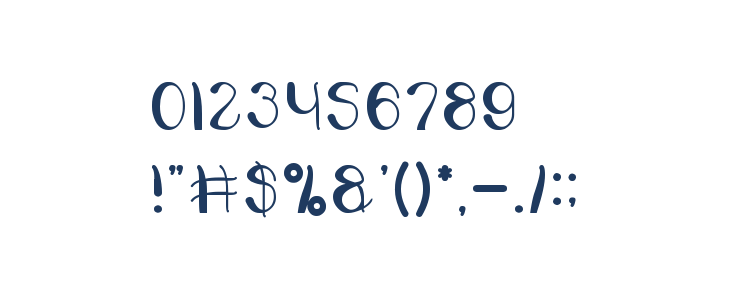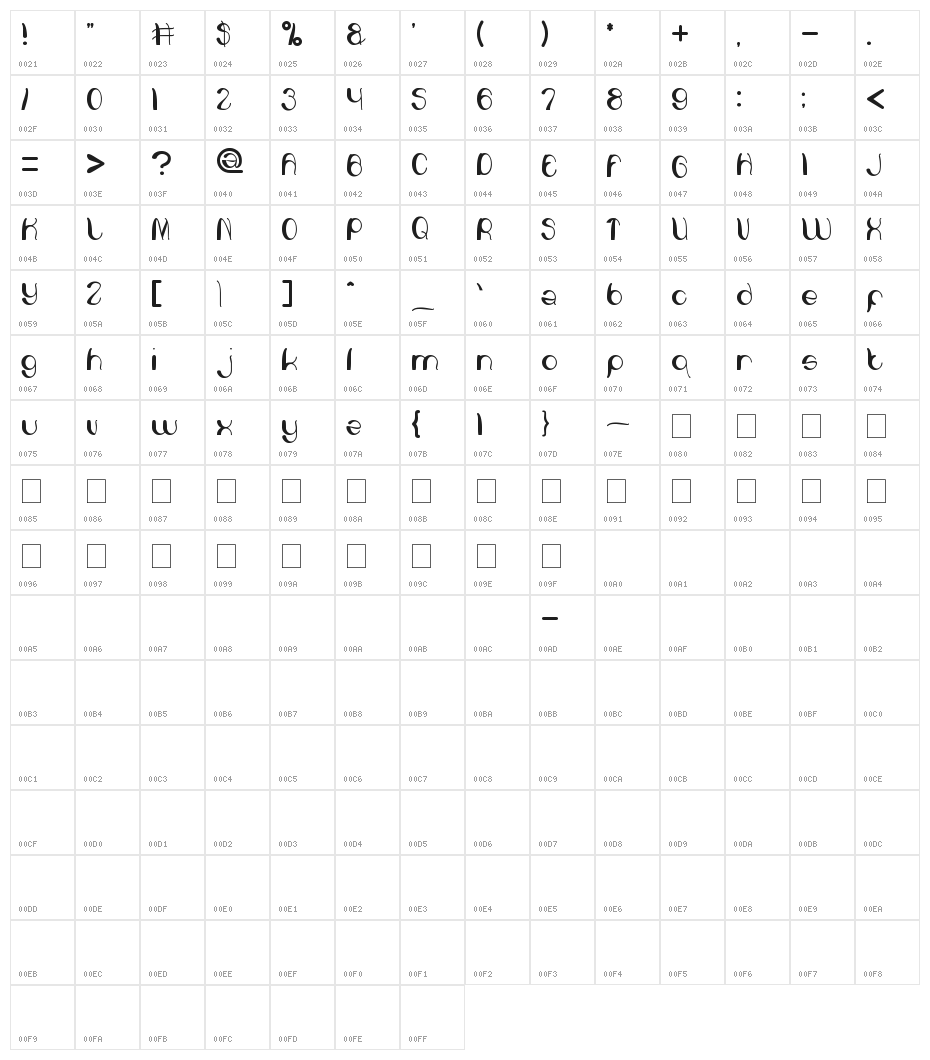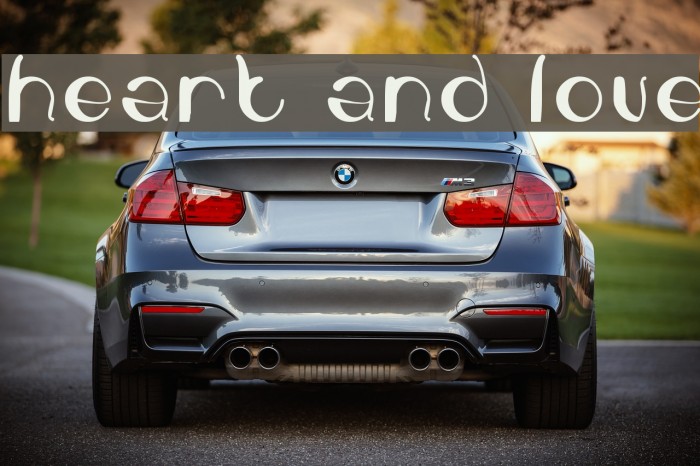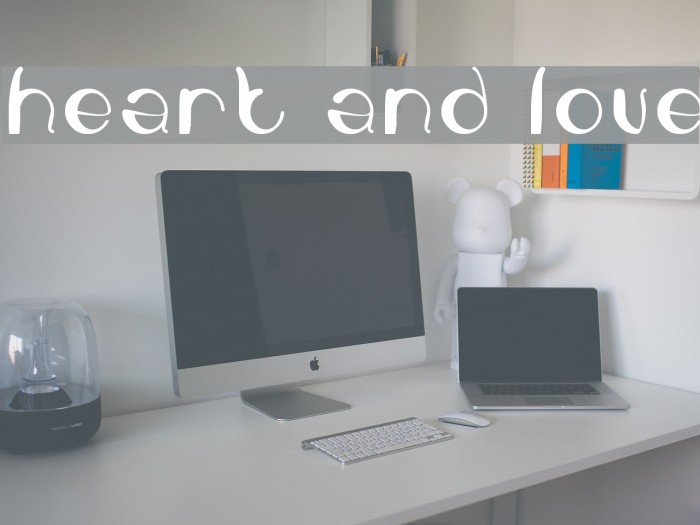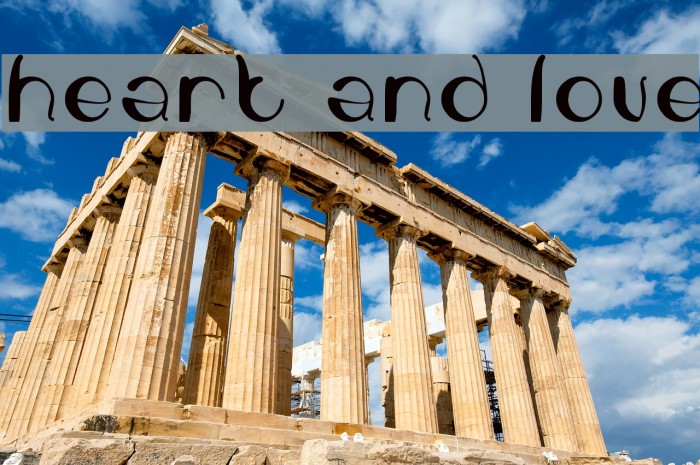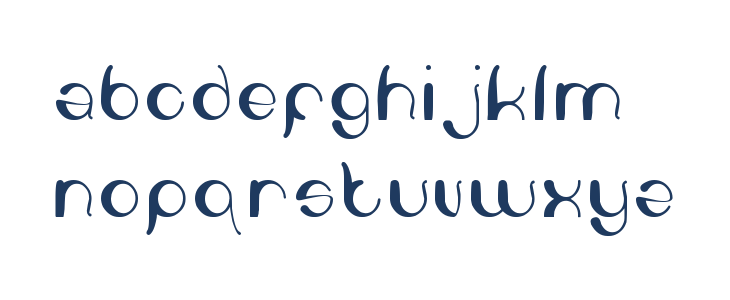
heart and love Font
heart and love Description
This font features a playful and whimsical design, characterized by its flowing curves and unique letterforms. The uppercase letters exhibit a blend of bold strokes with subtle curves, creating a sense of movement and energy. The lowercase letters maintain this playful aesthetic, with some characters having distinctive loops and swirls. Numbers are designed with a similar flair, ensuring consistency across the typeface. Special characters are creatively styled, adding to the font's overall charm. This font is ideal for projects that require a touch of fun and creativity, such as children's books, greeting cards, or playful branding.